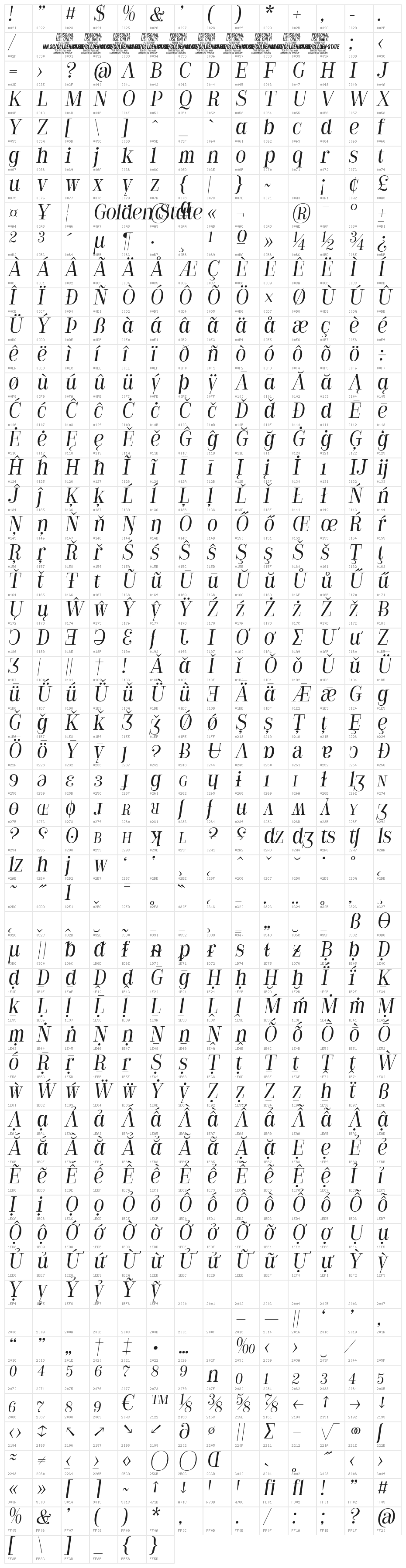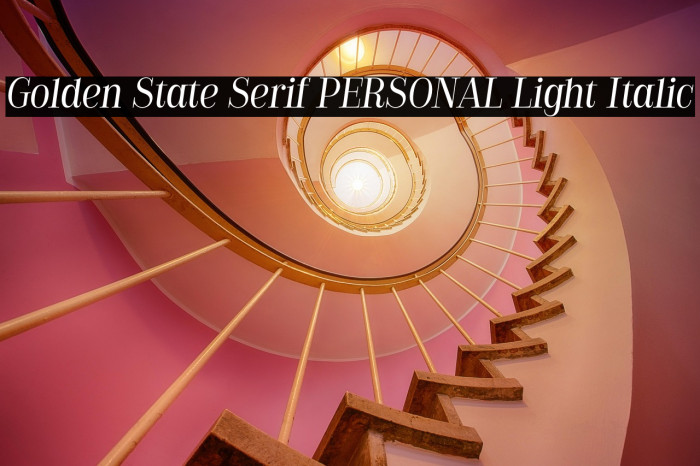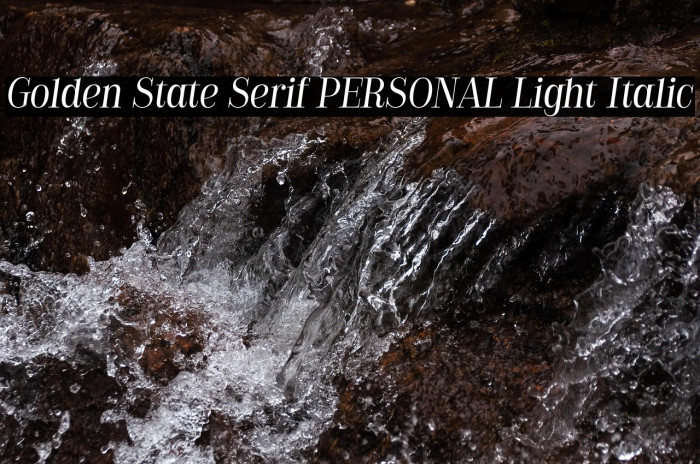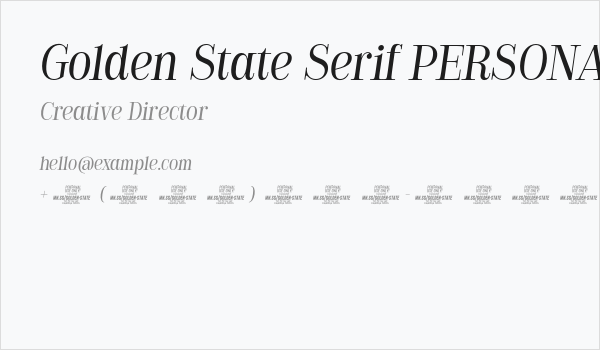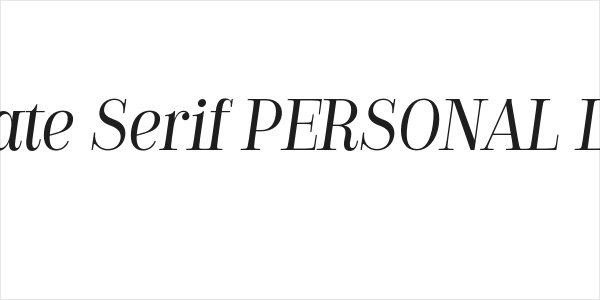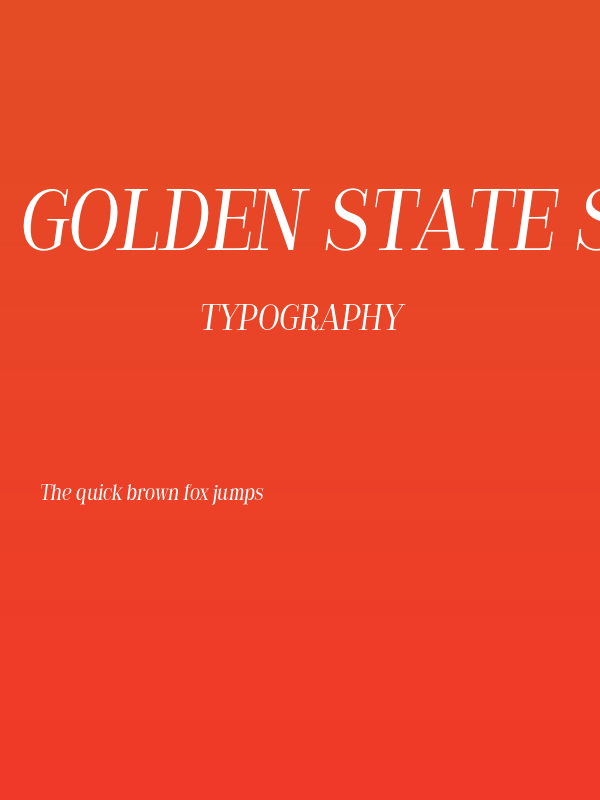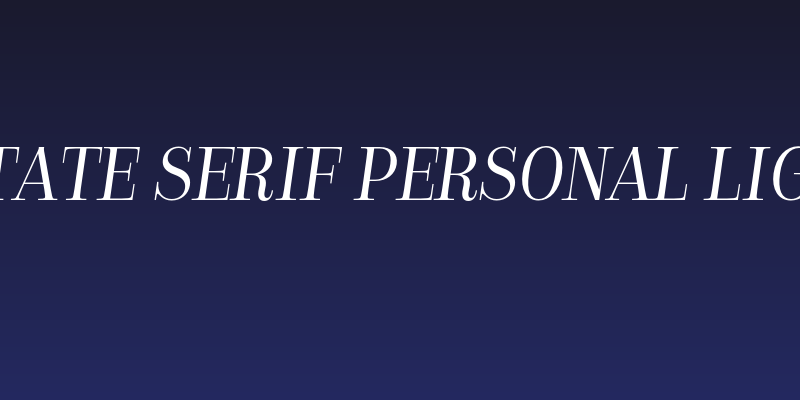
Golden State Serif PERSONAL Light Italic Font
Golden State Serif PERSONAL Light Italic Description
This elegant serif font features a refined and sophisticated design with a light weight and italic style. The characters exhibit a classic serif structure with smooth curves and sharp serifs, lending a sense of grace and formality. The uppercase letters are tall and commanding, while the lowercase letters maintain a harmonious flow. The numerals and special characters are crafted with the same attention to detail, ensuring consistency across all glyphs. This font's delicate strokes and subtle contrast make it suitable for projects that require a touch of elegance and tradition.
| Proposed Projects | Ideal for wedding invitations, formal event programs, luxury branding, and editorial design. |